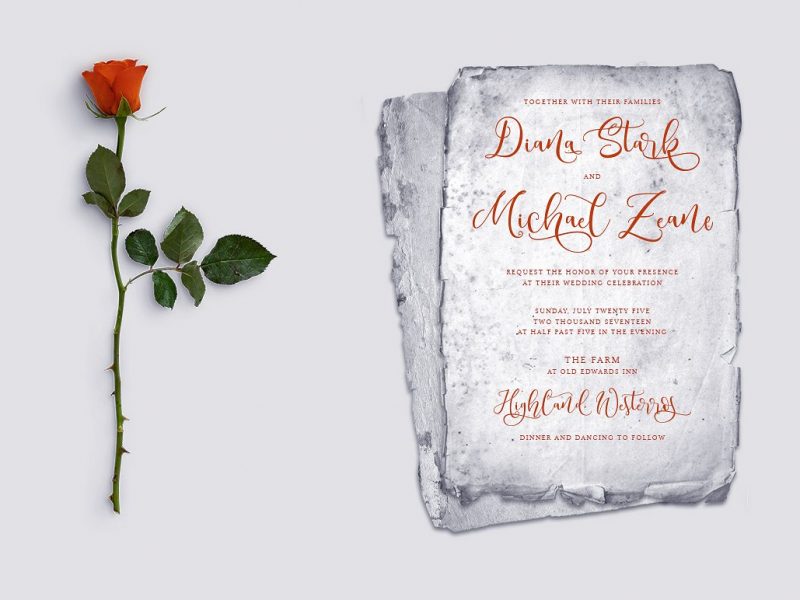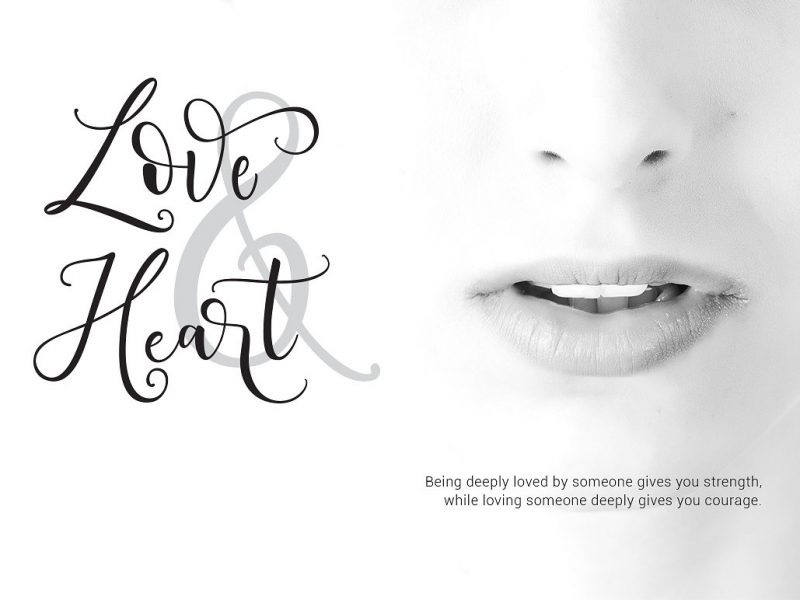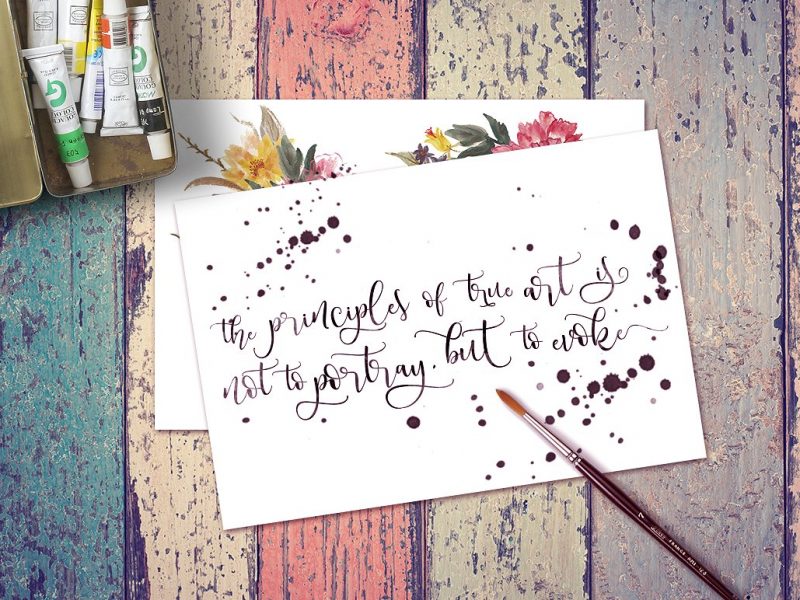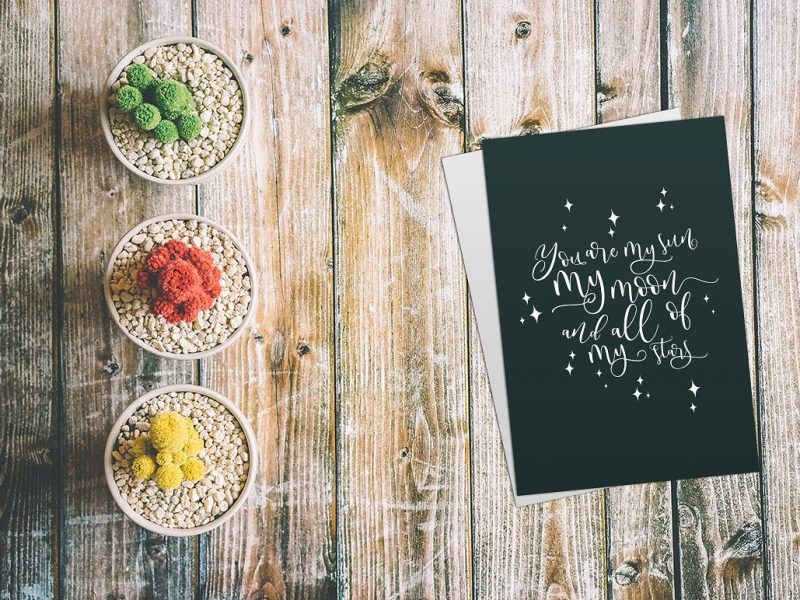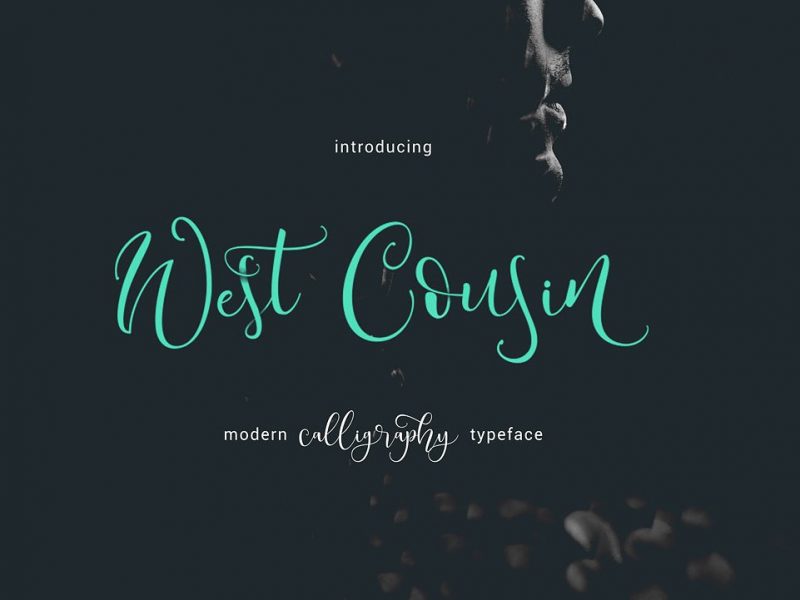
West Cousin Script Font
Hello friend! A stylish handwritten with signature style! Introducing West Cousin Font! It is was designed and shares by thirtypath. West Cousin Typeface – a modern calligraphy font. West Cousin a beautiful for logotype, website header, fashion design,wedding card design and any more. West Cousin comes with elegant style, it contains a full set of lower & uppercase letters, a large range of punctuation, numerals, and multilingual support.